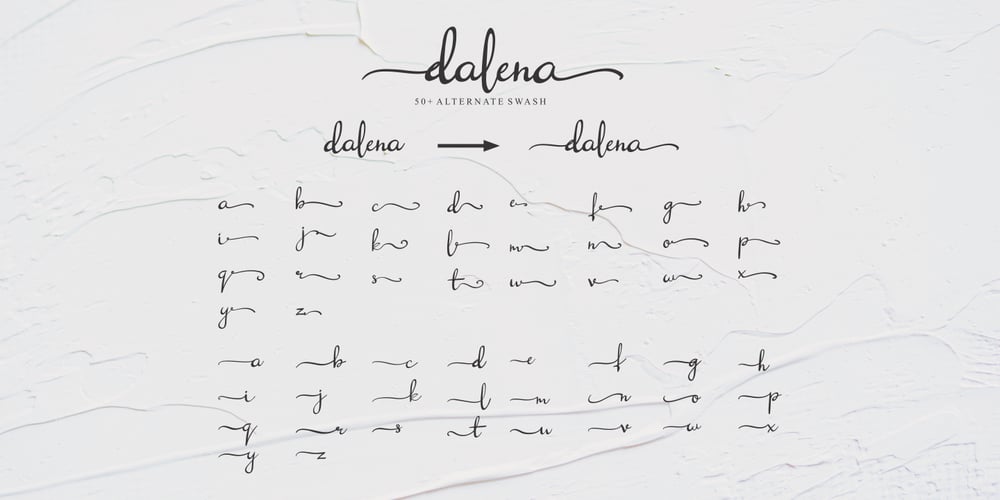
Dalena Font Family was designed by Dian Haniffan Hadi and published by Beary. Dalena contains 1 styles and family package options. Dalena is for those of you who are needing a touch of elegance and modernity for your designs, this font was created for you! Dalena has the added bonus of having ‘multiple personalities’! It has 2 sets of extra alternate lowercase letters, which allow you to create different feels for different projects. Happy Creating!